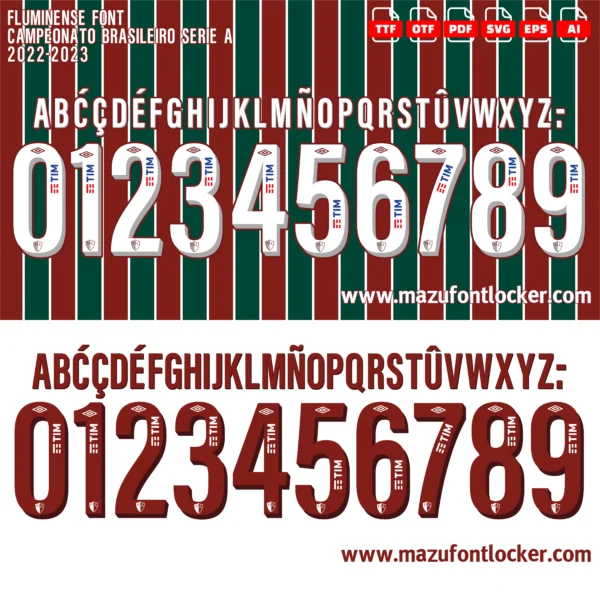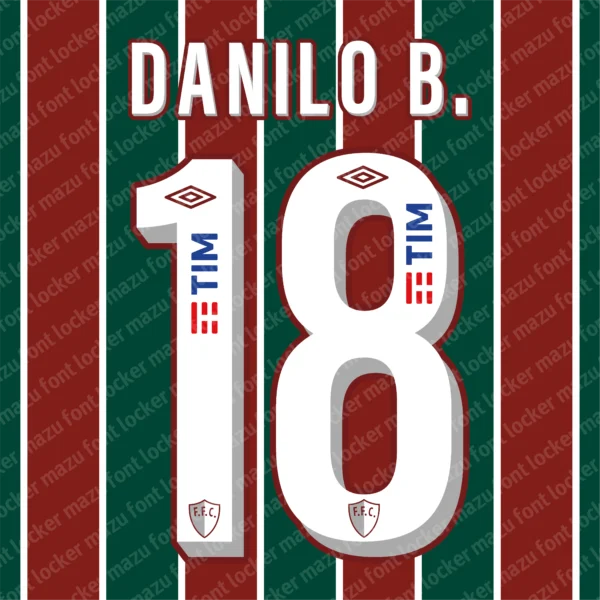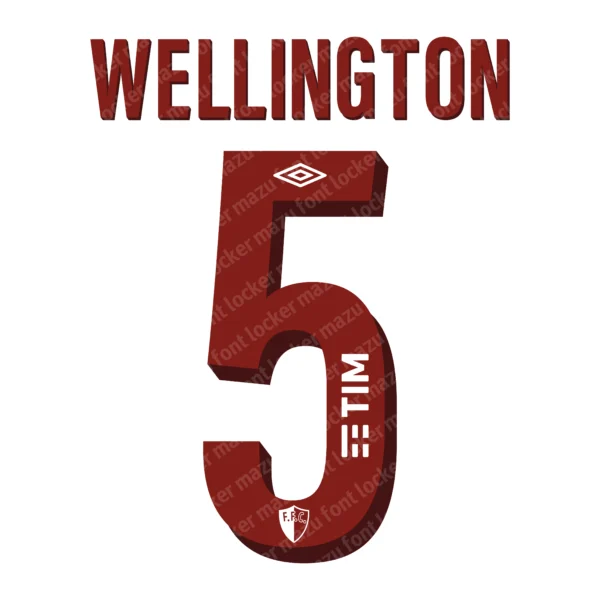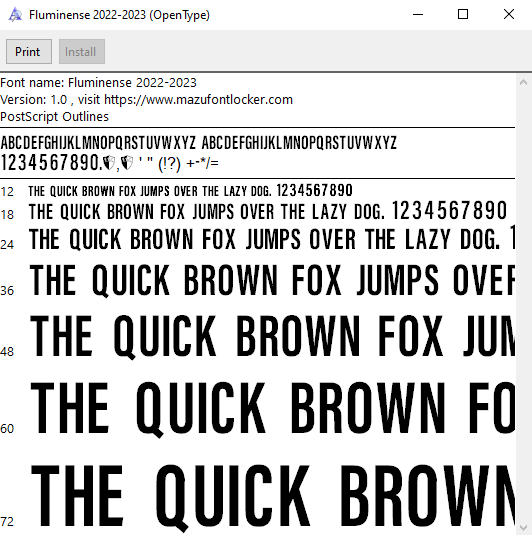
Fluminense 2022-2023 Font Vector – Stunning Tricolor das Laranjeiras Masterpiece
This font captures the commanding, precision-forged lettering inspired by Fluminense’s legendary green, white, and burgundy identity, proud Rio de Janeiro heritage, historic Tricolor tradition, and passionate Brazilian football spirit — delivering premium authenticity and explosive match-day energy for professional jersey mockups, football graphics, sports branding, fan designs, and high-end creative projects.
Fluminense 2022-2023 Font Vector – Stunning Tricolor Typeface
The Fluminense 2022-2023 Font Vector is a premium typeface designed to recreate the distinctive football lettering associated with Fluminense FC during the 2022-2023 season. This high-quality vector font kit captures the bold, elegant, and instantly recognizable typography inspired by the club’s iconic green, white, and burgundy identity.
Why Choose Fluminense 2022-2023 Font Vector
This font stands out thanks to its precise vector construction and authentic club-inspired styling. Every letter and numeral has been meticulously recreated to deliver a distinctive football lettering aesthetic inspired by Fluminense’s 2022-2023 campaign and its proud Brazilian football heritage.
The lettering featured in the Fluminense 2022-2023 Font Vector combines clean geometric lines with bold proportions and a polished football aesthetic. The result is a premium and highly readable typeface that reflects Fluminense’s historic identity, iconic green, white and burgundy colors, Rio de Janeiro heritage, and passionate global fanbase.
- Complete uppercase A–Z alphabet and numbers 0–9 in authentic Fluminense 2022-2023 inspired style
- Special Fluminense FC badge glyph – Press the “:” (Colon) key to insert the club crest